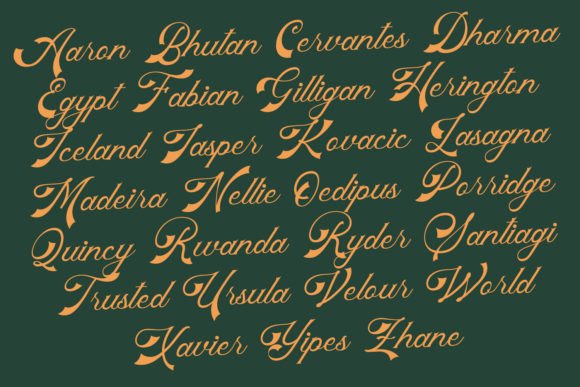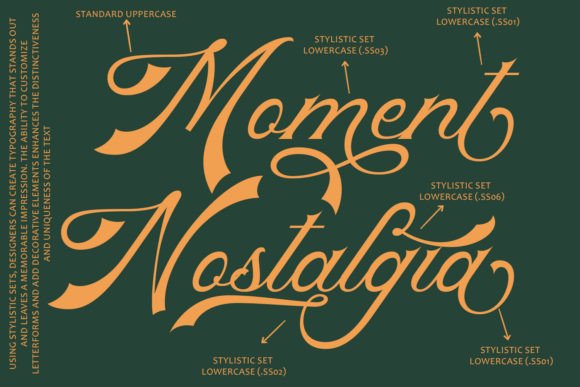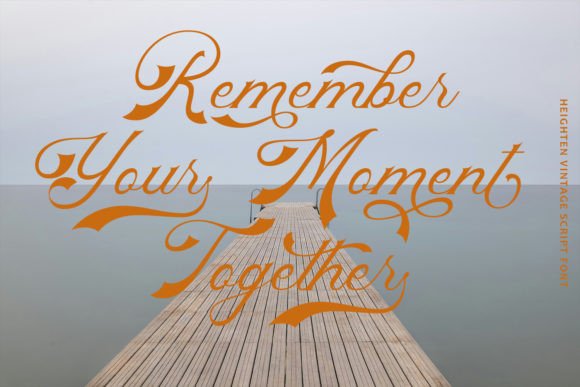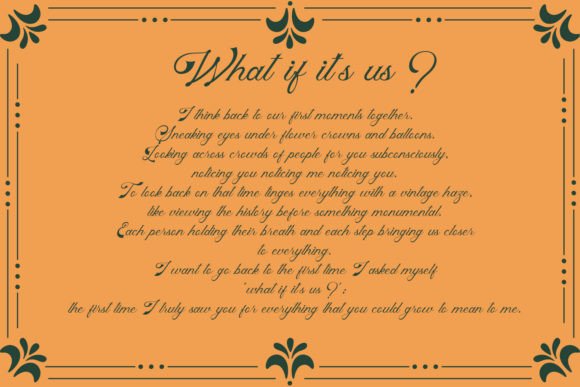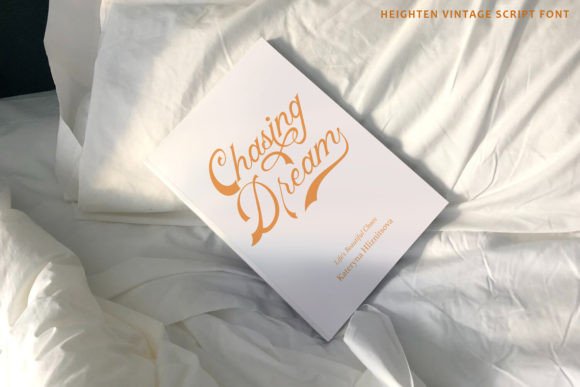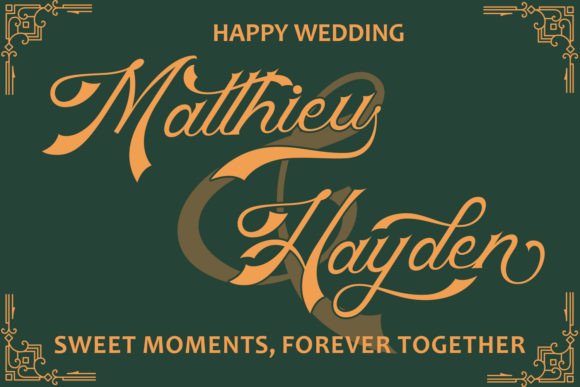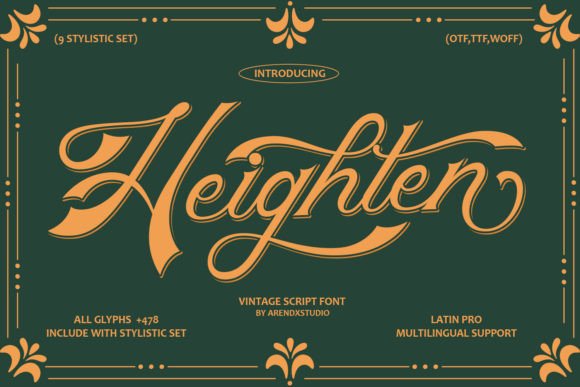
Introducing Heighten Font: A Timeless Vintage Script Font
Are you looking for a font that exudes sophistication, elegance, and a touch of nostalgia? Look no further than Heighten Font, a beautifully crafted vintage script font that embodies the classic typography of a bygone era. With its intricate details and smooth, flowing curves, Heighten Font is the perfect addition to any design project that requires a dash of refinement and luxury.
The Story Behind Heighten Font
Heighten Font is a carefully crafted font that draws inspiration from the classic typography of the past. Its design is rooted in the traditional script fonts of the 19th and early 20th centuries, with intricate details and ornate flourishes that evoke a sense of nostalgia and romance. The font’s creator has meticulously refined every aspect of the design, from the subtle variations in line width to the precise curvature of each letterform, to create a truly timeless and elegant font.
Key Features of Heighten Font
- Sophisticated and elegant design: Heighten Font boasts a sophisticated and elegant design that is perfect for high-end branding, packaging, and editorial projects.
- Intricate details and smooth curves: The font features intricate details and smooth, flowing curves that give it a luxurious and refined feel.
- Timeless appeal: Heighten Font’s classic design ensures that it will remain a stylish and relevant choice for years to come, without ever looking dated or trendy.
- Versatile and adaptable: The font is suitable for a wide range of design applications, from elegant headings and titles to more formal body text.
What Makes Heighten Font So Special?
So, what sets Heighten Font apart from other script fonts on the market? Here are just a few factors that make it truly special:
- Attention to detail: The creator of Heighten Font has paid meticulous attention to every detail, from the subtlest nuance of letterform curvature to the precise spacing and kerning.
- Authentic vintage feel: Unlike some modern script fonts that attempt to mimic a vintage look, Heighten Font is genuinely rooted in traditional typography.
- Exceptional legibility: Despite its ornate and intricate design, Heighten Font remains highly legible, even at smaller sizes.
Using Heighten Font in Your Design Projects
Heighten Font is an incredibly versatile font that can be used in a wide range of design applications, including:
- Branding and packaging: Add a touch of luxury and sophistication to your brand identity with Heighten Font.
- Editorial design: Use Heighten Font to create elegant headings and titles for magazines, books, and other publications.
- Wedding and event design: Heighten Font is perfect for creating beautiful wedding invitations, programs, and other stationery.
Tips for Getting the Most Out of Heighten Font
To get the most out of Heighten Font, here are a few tips to keep in mind:
- Use it sparingly: Due to its ornate design, Heighten Font is best used sparingly to create a sense of drama and impact.
- Experiment with different sizes and colors: Heighten Font looks stunning in a range of sizes and colors, so don’t be afraid to experiment and find the perfect combination for your project.
- Pair it with complementary fonts: Heighten Font pairs beautifully with a range of complementary fonts, from classic serif fonts to modern sans-serifs.
In conclusion, Heighten Font is a truly exceptional vintage script font that offers a unique combination of sophistication, elegance, and timeless appeal. With its intricate details, smooth curves, and exceptional legibility, Heighten Font is the perfect choice for designers and crafters looking to add a touch of luxury and refinement to their projects. Whether you’re working on a branding project, editorial design, or wedding stationery, Heighten Font is sure to impress.